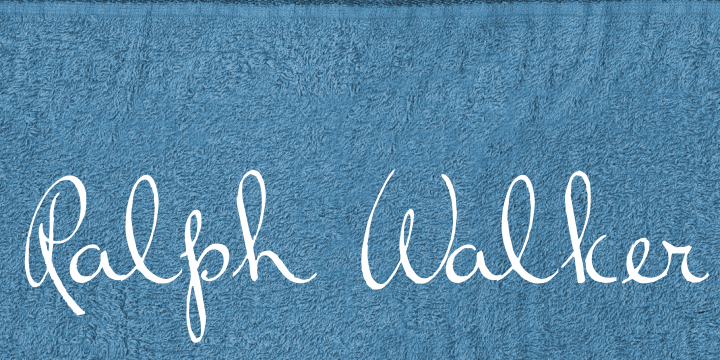
Free Ralph Walker Font
Today we're glad to feature this free ralph walker font. Download this free typeface from the original source of Font Space. Easily amaze your audience with this fancy font and make your graphic designs pop up from the crowd.